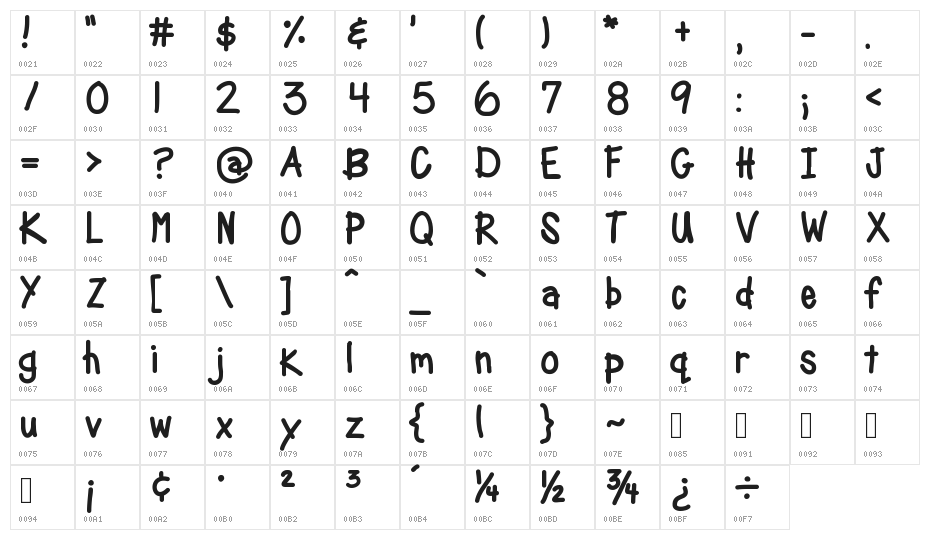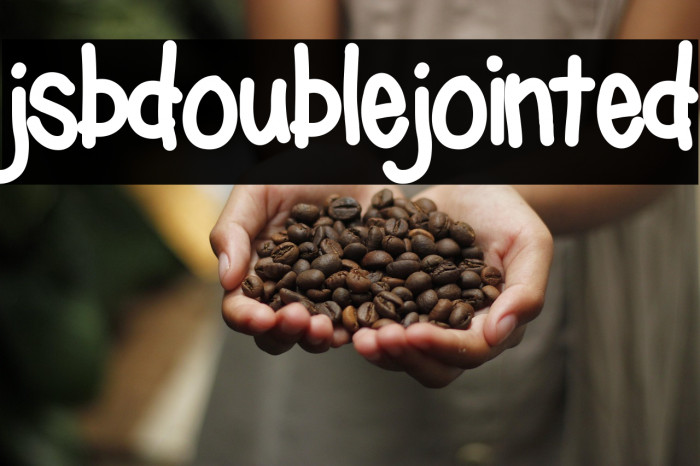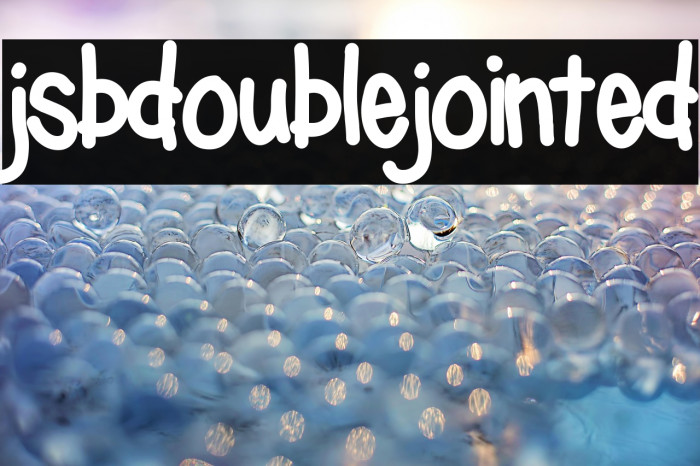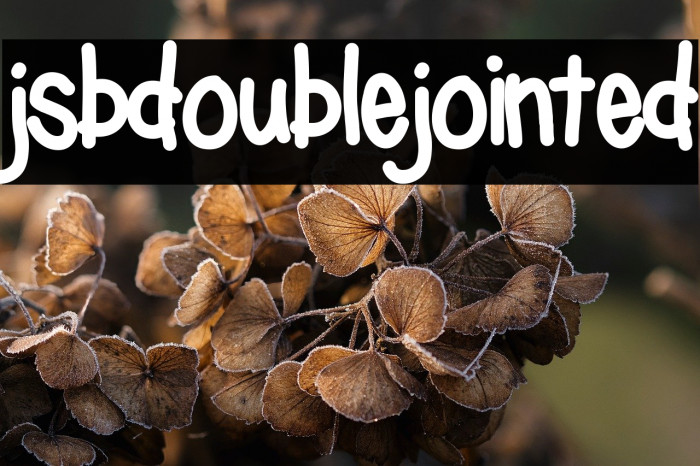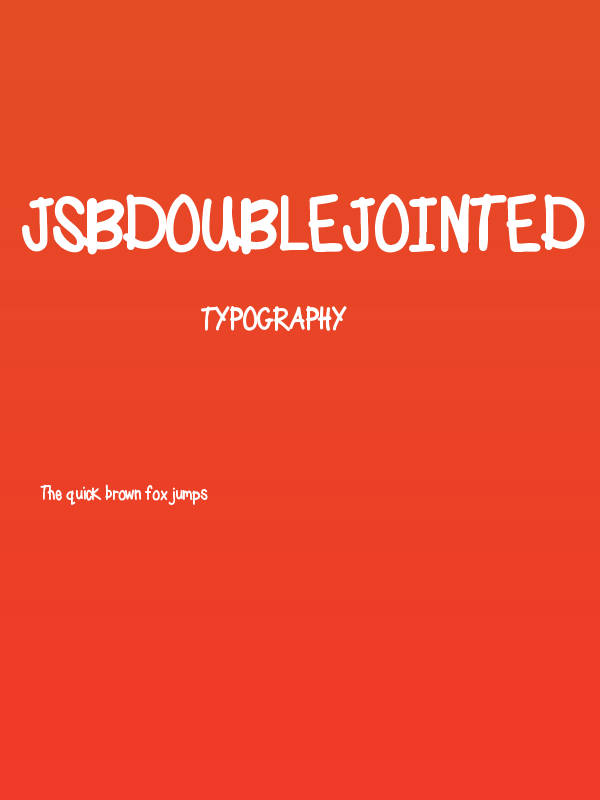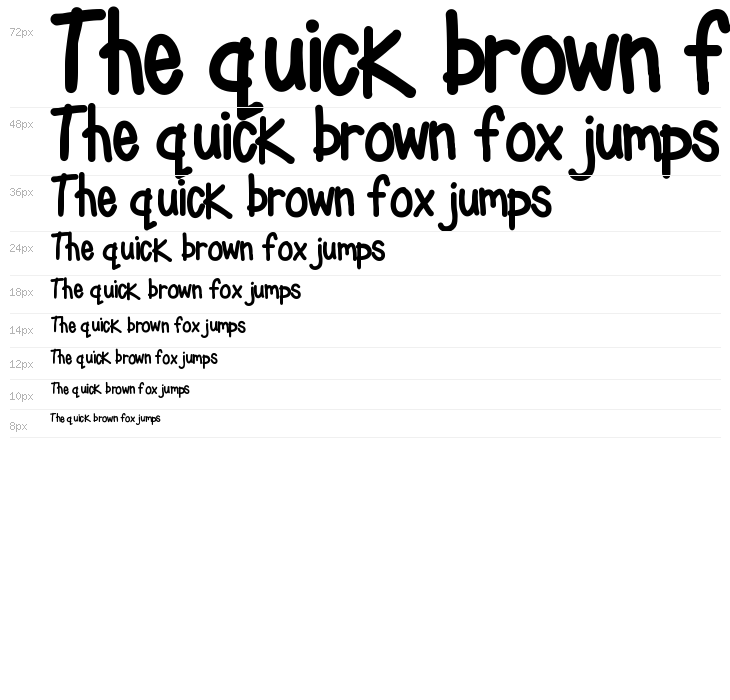
jsbdoublejointed Font
jsbdoublejointed Description
A playful, handwritten font with bold, rounded strokes and a casual style.
| Overall Style | Casual, Playful |
| Use Case | Headlines, Informal text, Logos |
| Proposed Projects | Children's books, casual invitations, playful branding. |